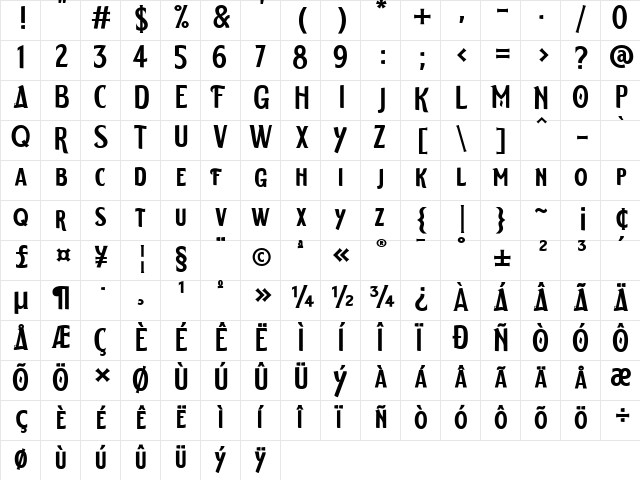
ELDERWEISS Regular
| Designer | FAUZAN MIZAN - Arthaeum Type Foundry |
Design Context for ELDERWEISS Typeface
ELDERWEISS is a composed and adaptable typeface that performs quietly and consistently across a wide range of design contexts.